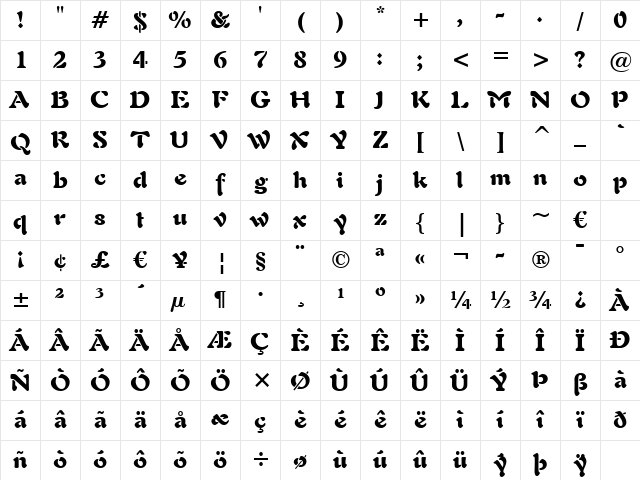
Freefrm721 Blk BT Black
Design Context for Freefrm721 Blk BT
Freefrm721 Blk BT is a composed and adaptable typeface that performs quietly and consistently across a wide range of design contexts.